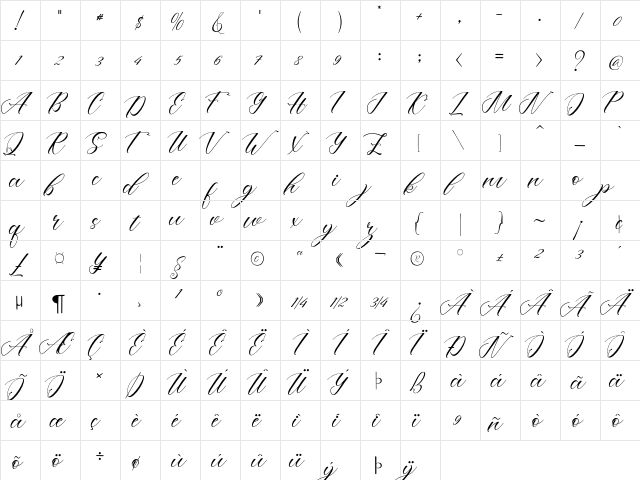
Lotherday Regular
Design Context for Lotherday Typeface
Lotherday is a composed and adaptable typeface that performs quietly and consistently across a wide range of design contexts.